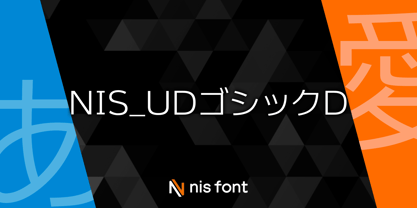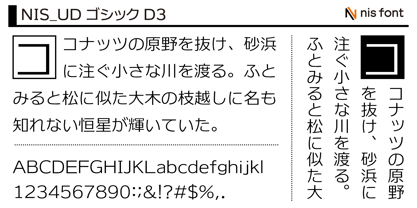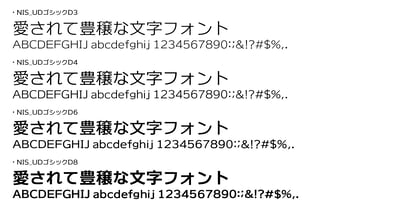
OT-UGD
by NIS Fonts
The OT-UGD Font Family was designed by and published by NIS Fonts. OT-UGD contains 4 styles and family package options. More about this family
This Gothic typeface is designed with universal design principles in mind. The D series features kanji and kana characters of uniform size, making it well-suited for arranging words in an orderly and visually consistent manner. Supports the JIS2004 character set.